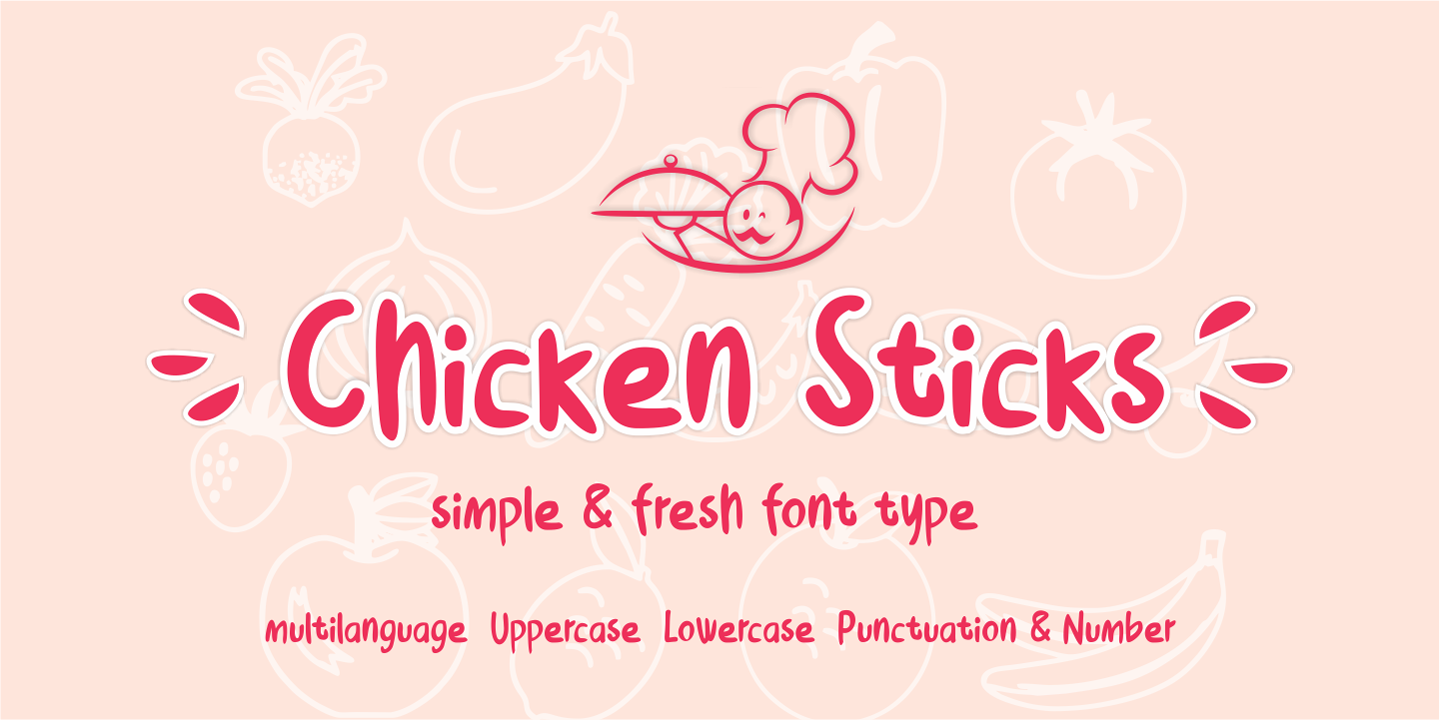
Chicken Sticks Font is perfect for casual fried chicken restaurant branding, fun food truck communications, playful snack bar signage, carnival food stand marketing, street food festival promotions, comfort food blog materials, quirky fast-food packaging, and lighthearted dining establishment campaigns. This playful typeface excels in applications where casual fun, comfort food appeal, and approachable humor are essential for connecting with audiences who appreciate delicious finger foods and the joyful simplicity of casual dining experiences.
What makes Chicken Sticks Font so exciting is its delightful embodiment of casual comfort food charm and playful dining fun that perfectly captures the essence of crispy fried chicken and the satisfying pleasure of handheld comfort foods. The font features quirky, stick-like letterforms with playful characteristics that evoke chicken drumsticks and casual food presentation. Its fun character conveys comfort, satisfaction, and casual enjoyment - essential qualities for brands serving comfort food enthusiasts, casual diners, and audiences who appreciate finger-licking good food, playful dining experiences, and the simple pleasure of delicious fried chicken and comfort food favorites.
The Chicken Sticks Font family includes multiple crispy weights and food-inspired variations that enhance its casual appeal. Some versions feature textured elements that simulate crispy coating and casual food presentation, while others provide cleaner variants that maintain the font's playful character with improved readability for professional food service applications and commercial casual dining communications.
Whether you're creating branding for casual restaurants, designing materials for food trucks, or developing marketing campaigns for comfort food experiences, Chicken Sticks Font Free Download provides the finger-lickin' appeal your project requires. The font's casual character makes it particularly effective for brands targeting comfort food lovers and audiences who appreciate casual dining, playful food experiences, and the satisfying comfort of delicious fried chicken and handheld treats.
Get crispy with Chicken Sticks Font and serve up finger-lickin' good brand communications with typography that celebrates the casual comfort of fried chicken and playful dining fun.